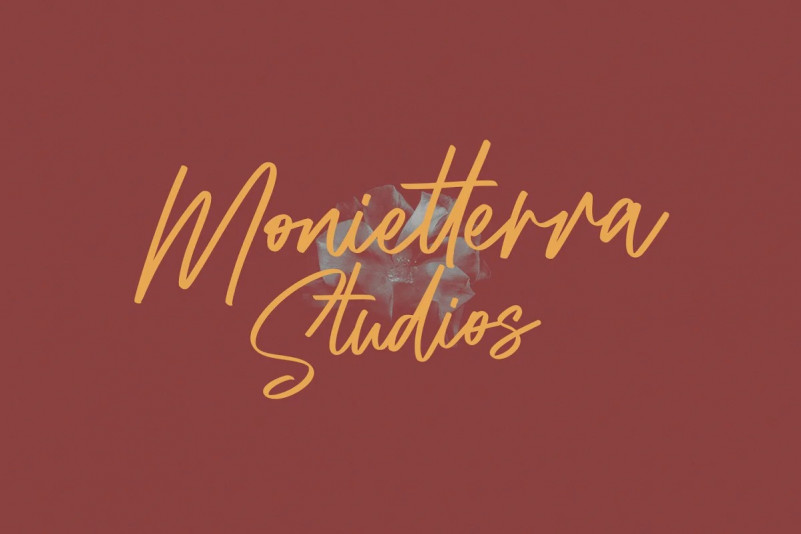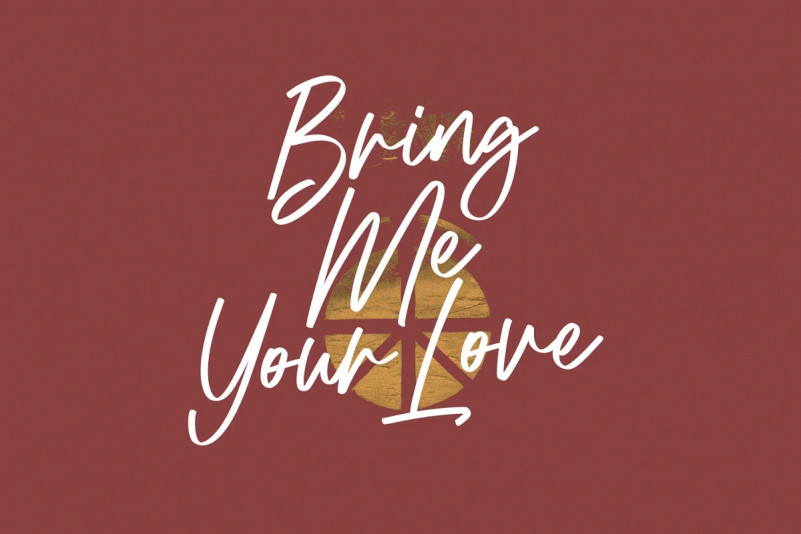
Baby Gentha Script Font
Baby Gentha is a cute, romantic calligraphy typeface with the characters dancing along the baseline. It has a casual yet elegant touch. It can be used for various purposes such as logos, wedding invitations, titles, t-shirts, letterheads, name boards, labels, news, posters, badges etc.